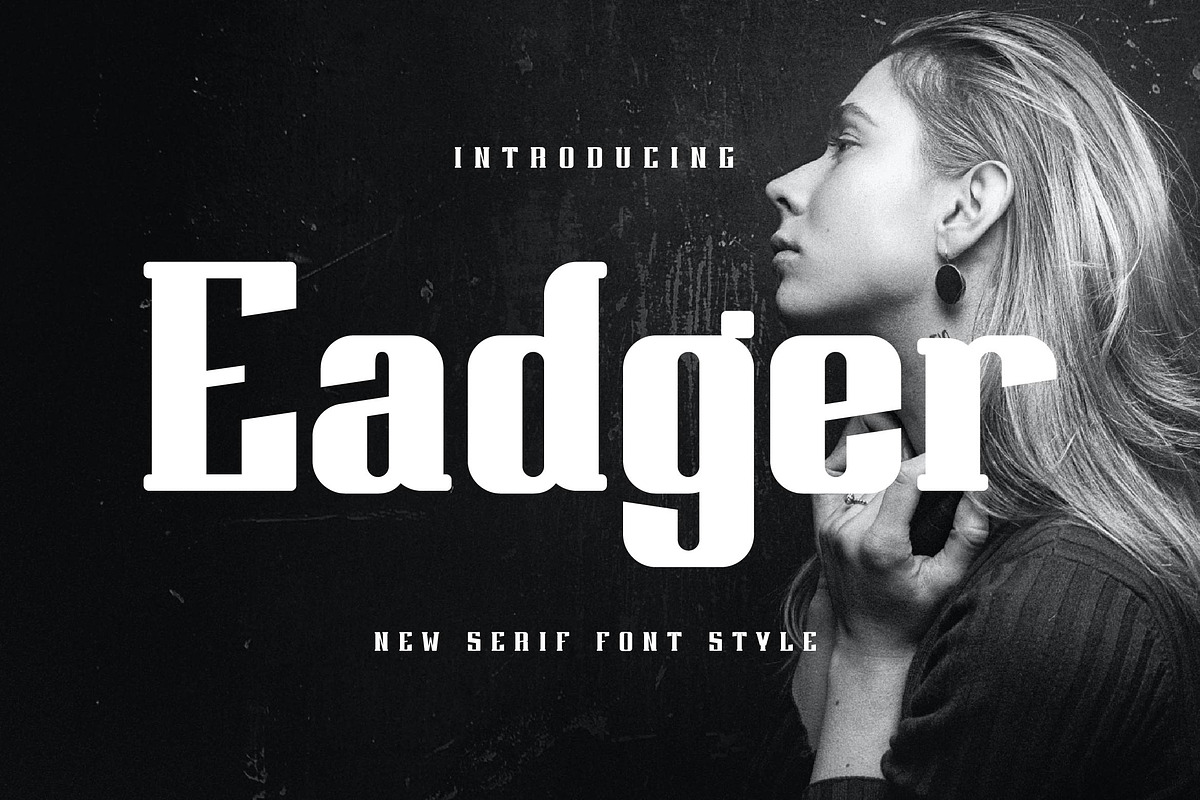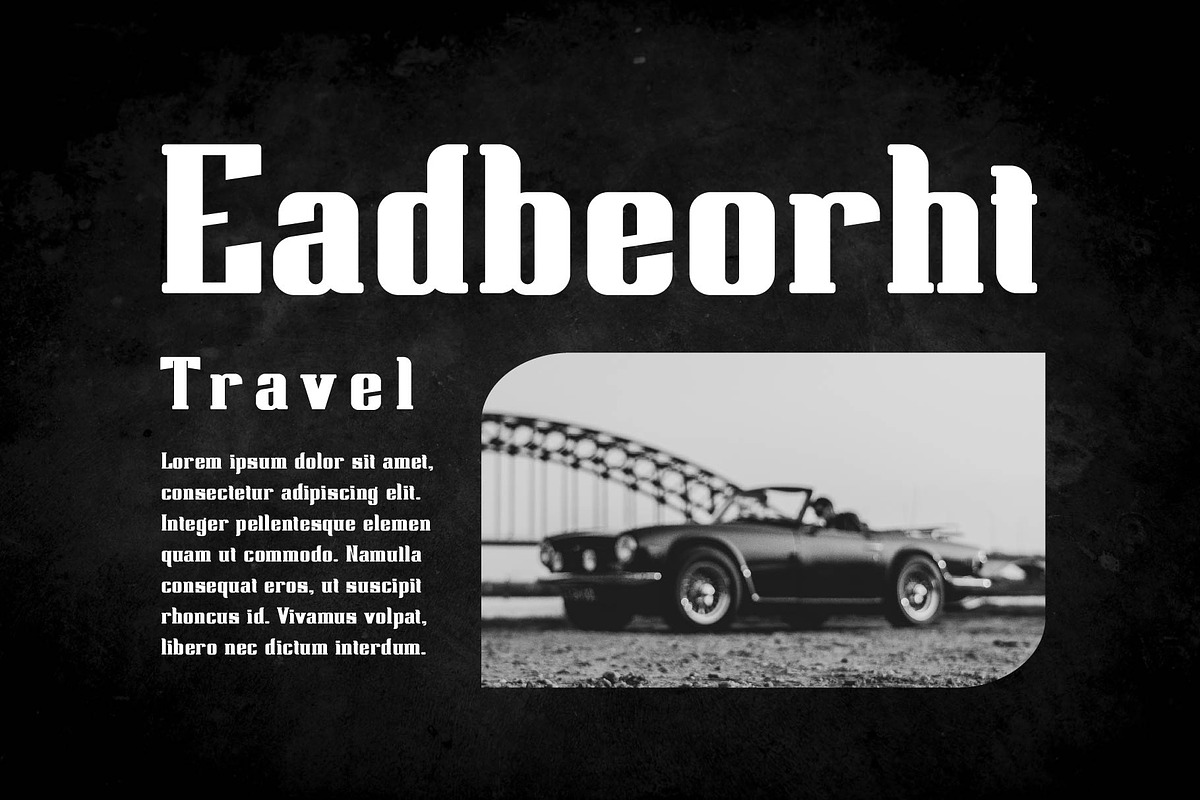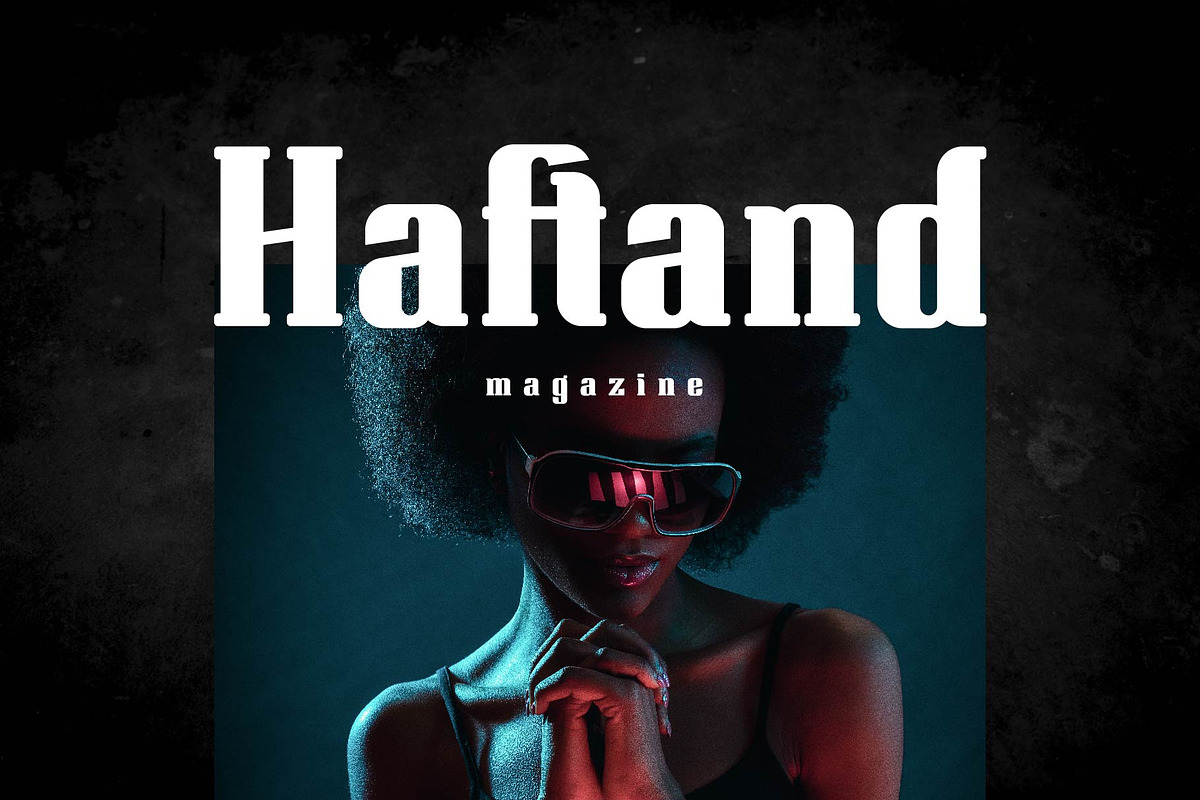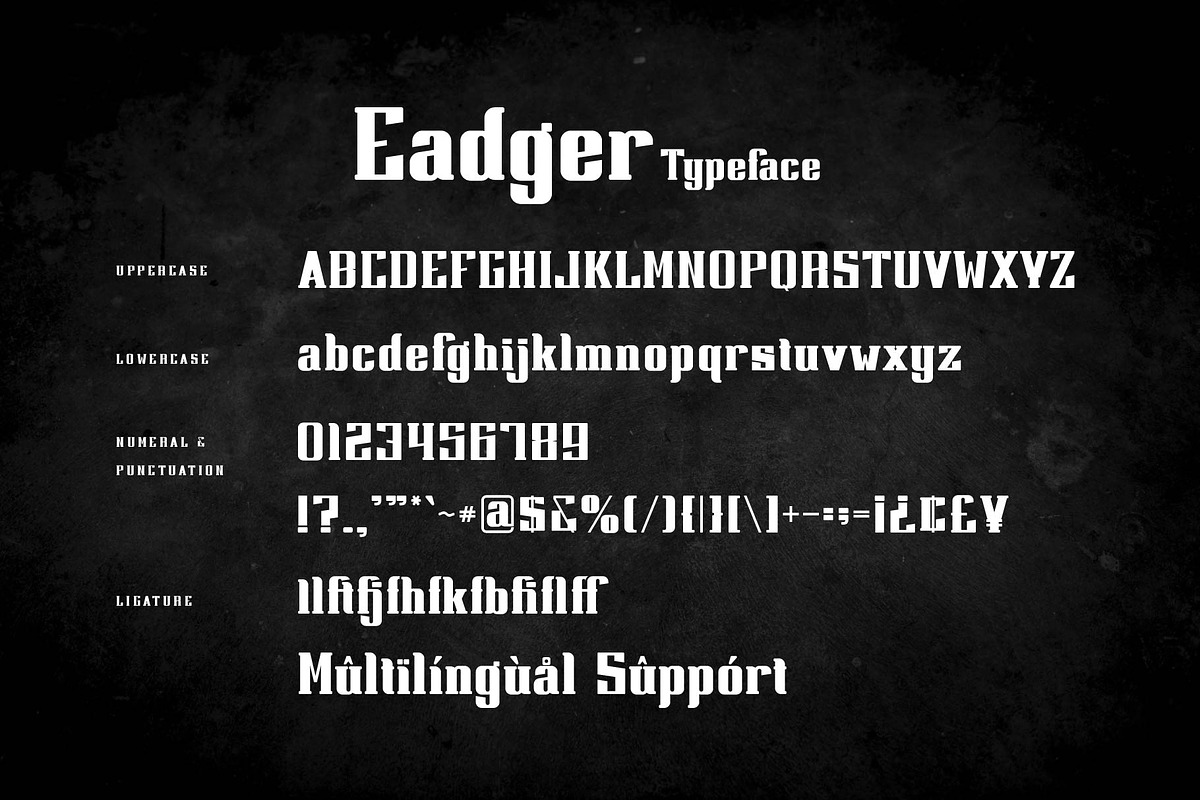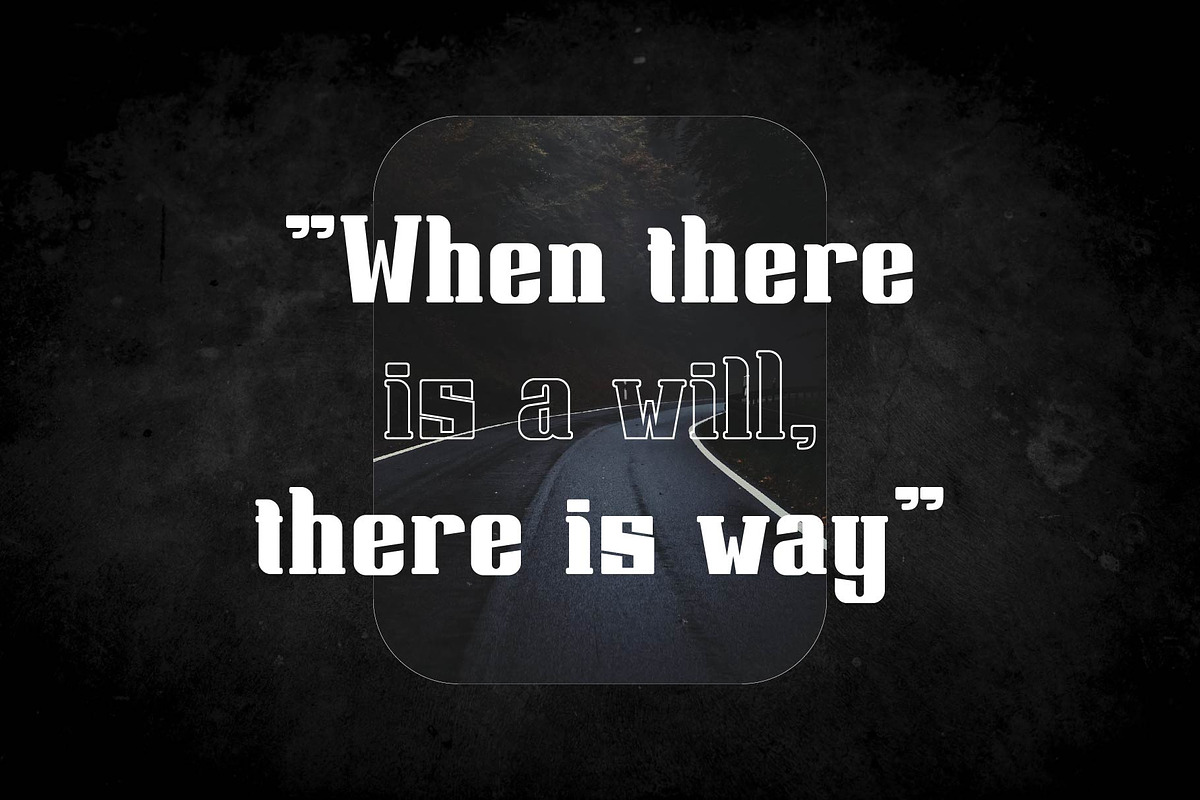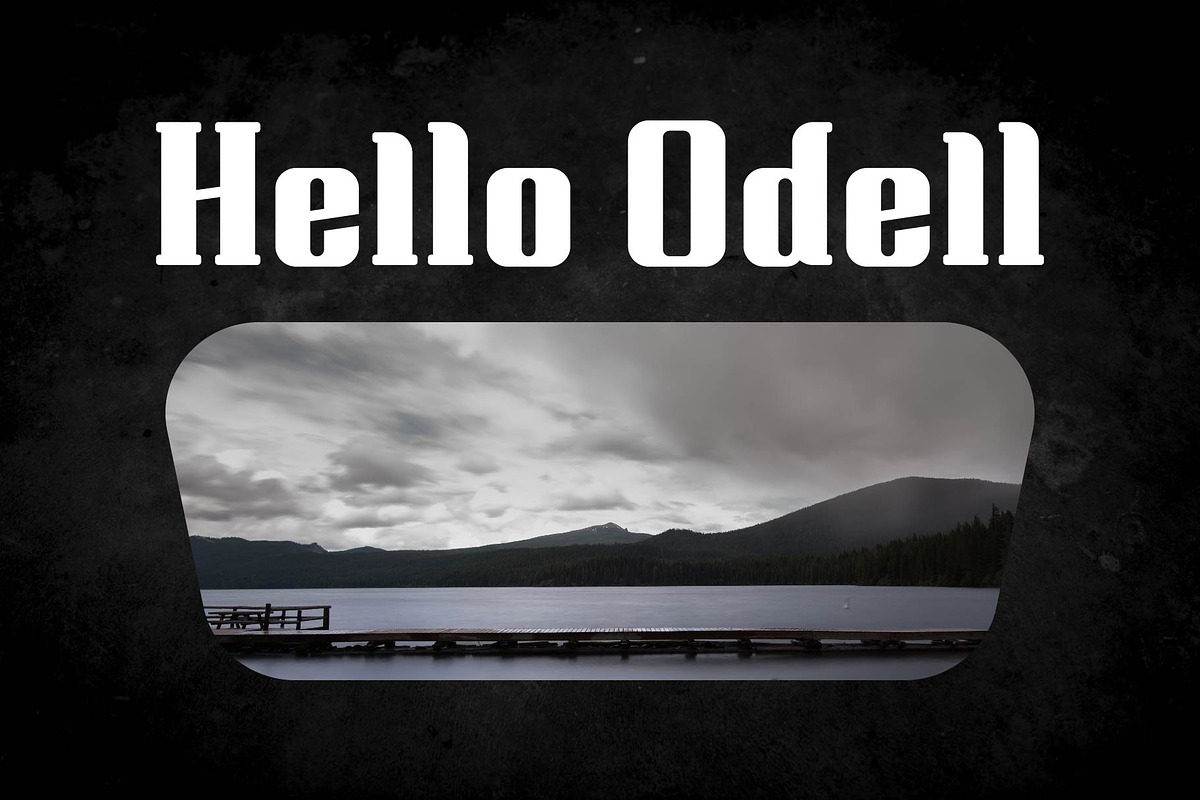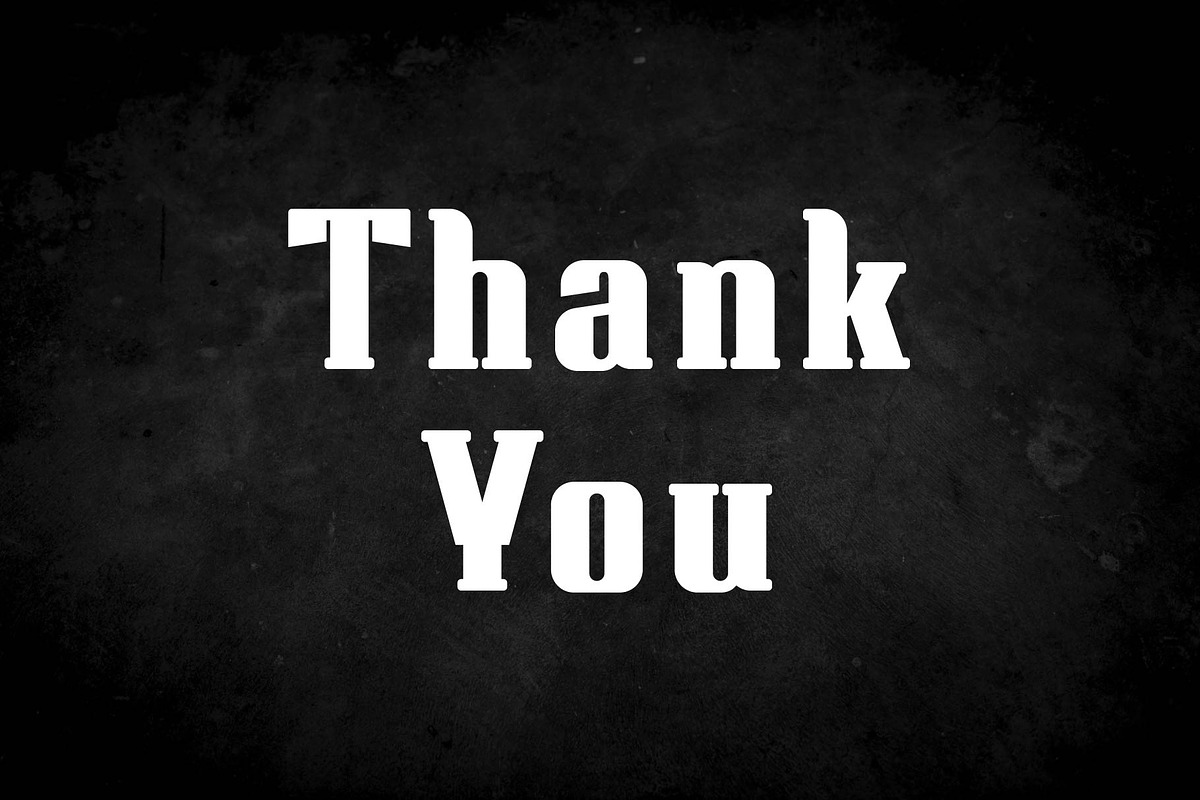
Eadger - Modern Serif Style
Eadger Stylish Ligature Typeface, inspired by the famous minimalist logo perfect for the purposes of designing templates, brochures, videos, advertising branding, logos and more.